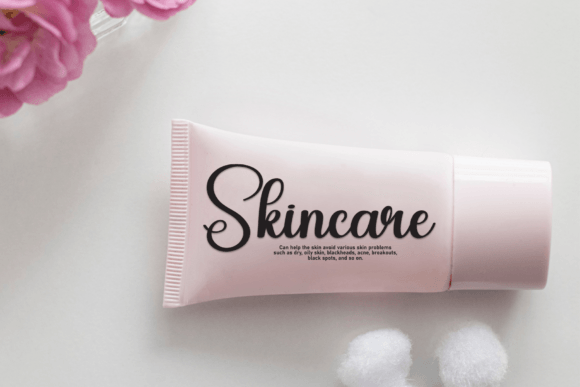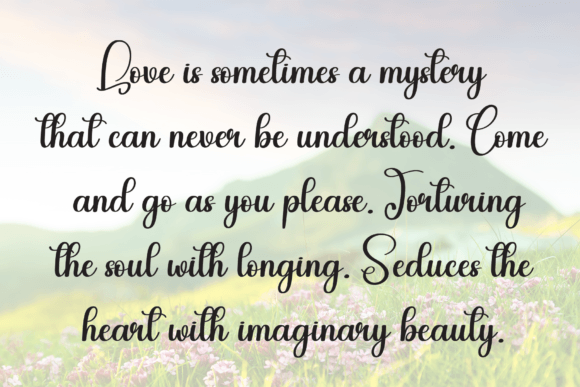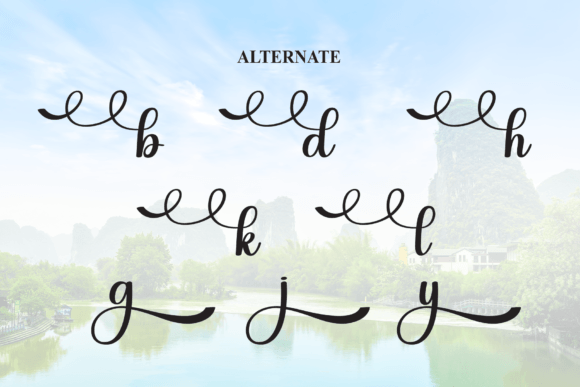
Introduction to Regard Font
As a designer, there’s nothing quite like that moment when a project comes together and all the pieces fall into place. You’ve poured your heart and soul into every detail, from the color palette to the typography, and it’s finally starting to feel like a cohesive whole. But sometimes, it’s just one element that can make all the difference – like discovering the perfect font to bring your design to life. For many designers, that font is the Regard Font.
The Regard Font is a sweet and friendly handwritten font that’s sure to capture the attention of anyone who lays eyes on your design. Its natural and unique style makes it incredibly versatile, allowing you to use it for a wide range of creative projects, from digital designs with a transparent background to high-quality prints and even free downloads.
Honest Review: Regard Font
As a designer, I’m always on the lookout for high-quality fonts to enhance my creative projects. The Regard Font is one such find that caught my attention, and I’m excited to share my honest review with you.
- ✨ High-quality design: The Regard Font boasts a clean and elegant design that’s perfect for a variety of creative projects.
- ✨ Versatility: It can be used for both digital and print designs, making it a valuable resource for designers.
However, I do have a few minor concerns:
- ⚠️ Limited font sizes: While the Regard Font is available in a range of sizes, I found that it starts to lose its clarity at very small font sizes.
- ⚠️ No transparent background: The font doesn’t support transparent backgrounds, which can be a limitation for designers working on complex designs.
Overall, I’m impressed with the Regard Font’s quality and versatility. While it may have a few limitations, it’s an excellent addition to any design resource collection, and I’d highly recommend it to fellow designers.
Tips for Getting the Most Out of Regard Font
Regard Font is a high-quality, free download that can be used in a variety of creative projects. To get the most out of it, use it with a transparent background to create a clean and minimalist look. You can also pair it with other design resources to create a unique and eye-catching design.
Regard Font is a versatile font that can be used in a variety of design projects, including brochures, flyers, posters, and social media graphics. It’s also great for use in logos, headings, and body text.
Whether you’re working on a personal project or a professional endeavor, the Regard Font is sure to elevate your design to new heights. Its unique style and high-quality design make it an excellent choice for designers looking to add a touch of sophistication to their creative project. So why wait? Download the Regard Font today and unlock its full potential – we’re confident you won’t be disappointed!